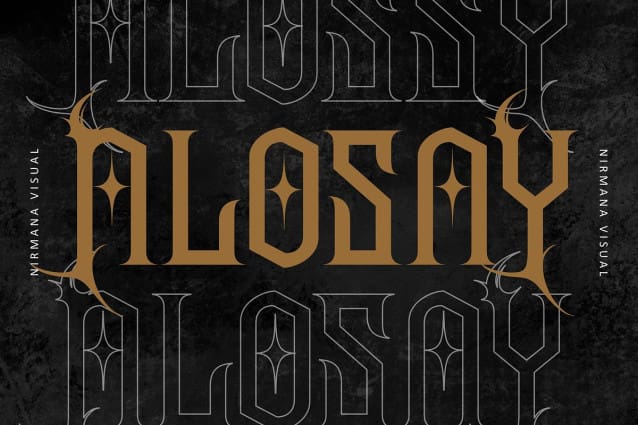
Alosay Gothic Font
Alosay Gothic Font is a meticulously crafted typeface that embodies the dark, mysterious, and ornate qualities of Gothic design. Each character is designed with intricate detailing, capturing the essence of medieval architecture, ancient manuscripts, and the shadowy elegance of Gothic art.